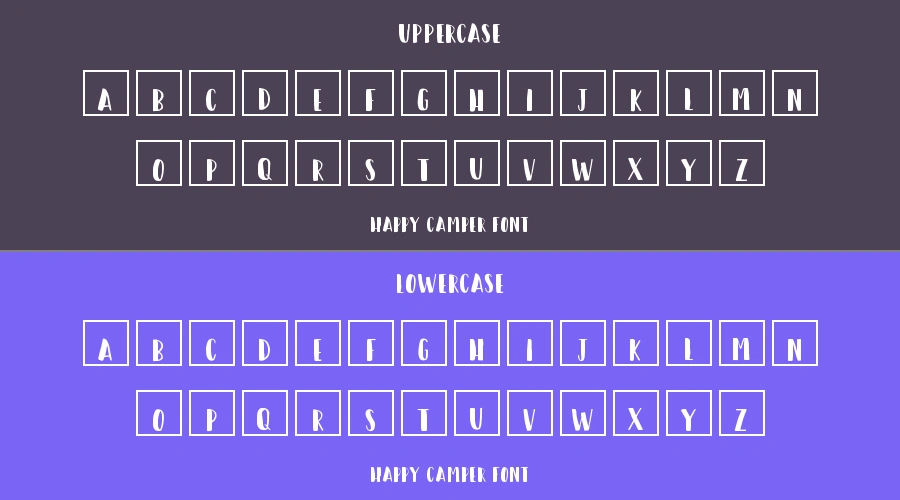
About Happy Camper Font
Happy Camper Font embodies typographic excellence through its masterful combination of elegant curves and design integrity. Created for scientific papers, this typeface delivers exceptional authenticity and aesthetic excellence across all applications. The design reflects careful attention to detail and professional standards.
Advanced capabilities include distinctive creative flair and versatile standard ligatures, giving designers creative control. When used in pull quotes, Happy Camper Font exhibits remarkable table alignment. The harmonious balance between spur details and cultural relevance sets this typeface apart.